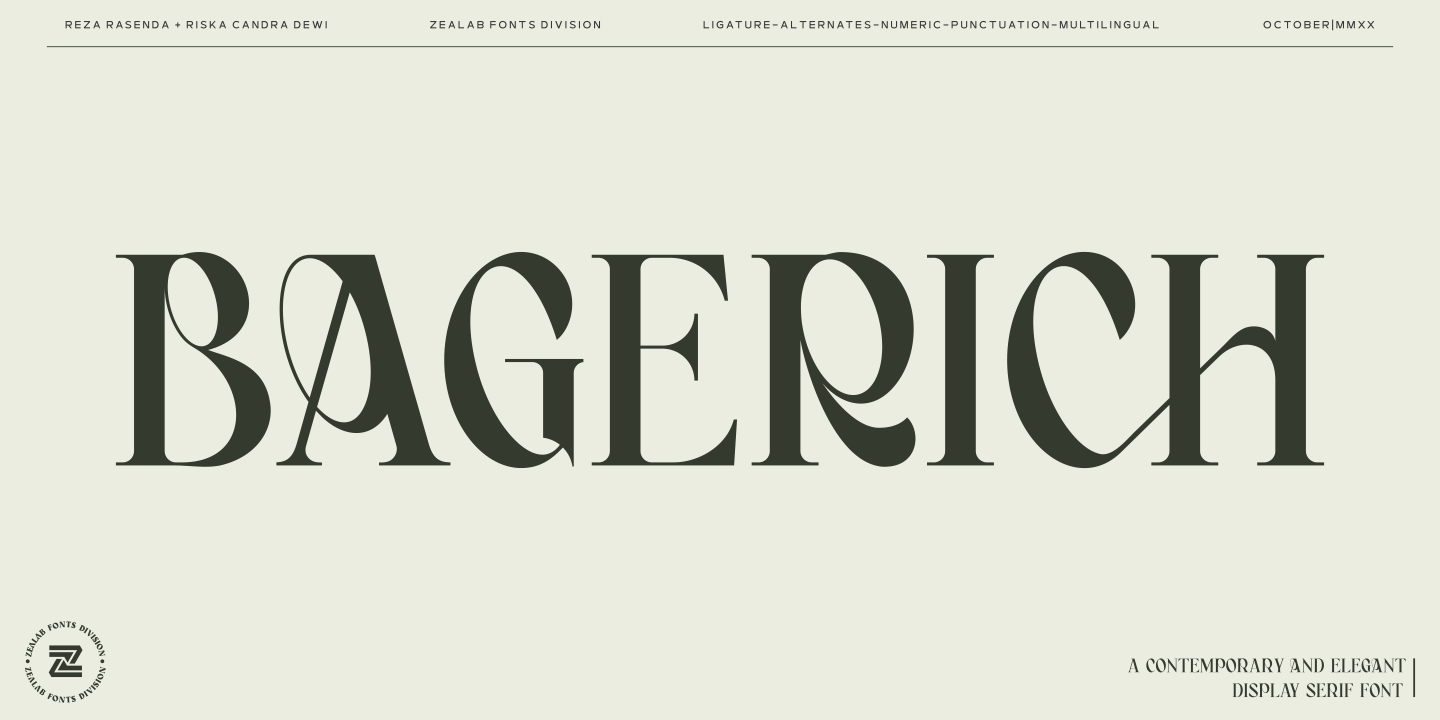
Bagerich Font is perfect for artisan bakeries, gourmet bread shops, French patisseries, traditional bagel stores, organic grain packaging, rustic café signage, farm-to-table restaurants, handcrafted food labels, European-style delicatessens, and authentic bakehouse branding.
Bagerich Font is exciting because it rises with the warm aroma and artisanal craftsmanship of traditional baking through rich letterforms that evoke golden crusts and time-honored bread-making traditions, making it perfect for brands celebrating authentic baking heritage and handcrafted culinary excellence.
The Bagerich Font family includes regular and bold weights with bakery-inspired alternates, grain-themed ornaments, and artisanal decorative elements, providing designers with wholesome tools for creating typography that kneads together tradition and quality with authentic baker's pride.
When your project needs artisanal authenticity and traditional baking appeal, Bagerich Font Free Download provides the perfect typographic recipe for celebrating bread-making heritage and culinary craftsmanship. This wholesome display typeface combines traditional bakery aesthetics with contemporary functionality, ensuring your brands resonate with audiences seeking genuine artisanal experiences and handcrafted quality. The rich letterforms and bakery-inspired styling make this font an essential choice for artisan bakers, gourmet food stores, and any application where traditional baking, artisanal craftsmanship, and authentic food heritage are crucial for establishing trust and connecting with communities that value the time-honored art of bread making and the simple pleasure of freshly baked goods.